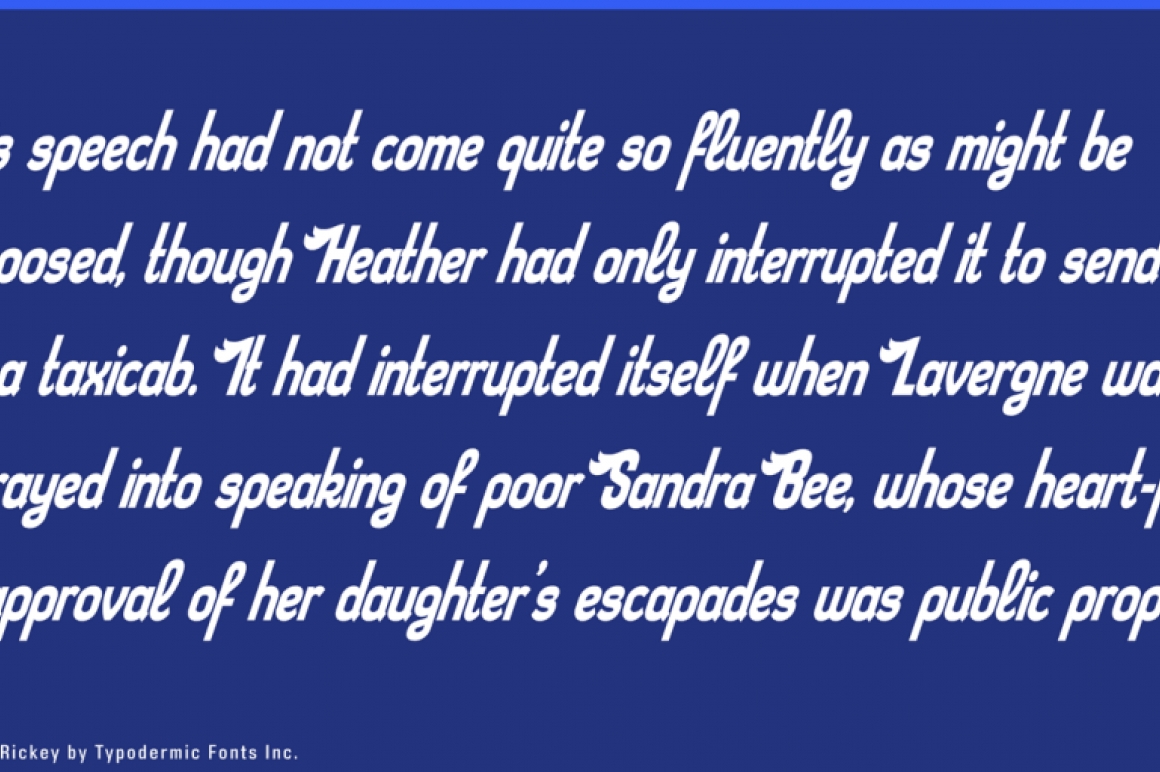
Sloe Gin Rickey
Sloe Gin Rickey is an aliform, industrial script. It was inspired by mid 20th Century automotive logo designs which used wing shapes to denote speed. You can see some of these ideas in the old logos for Raybestos, Harley Davidson and Bendix.